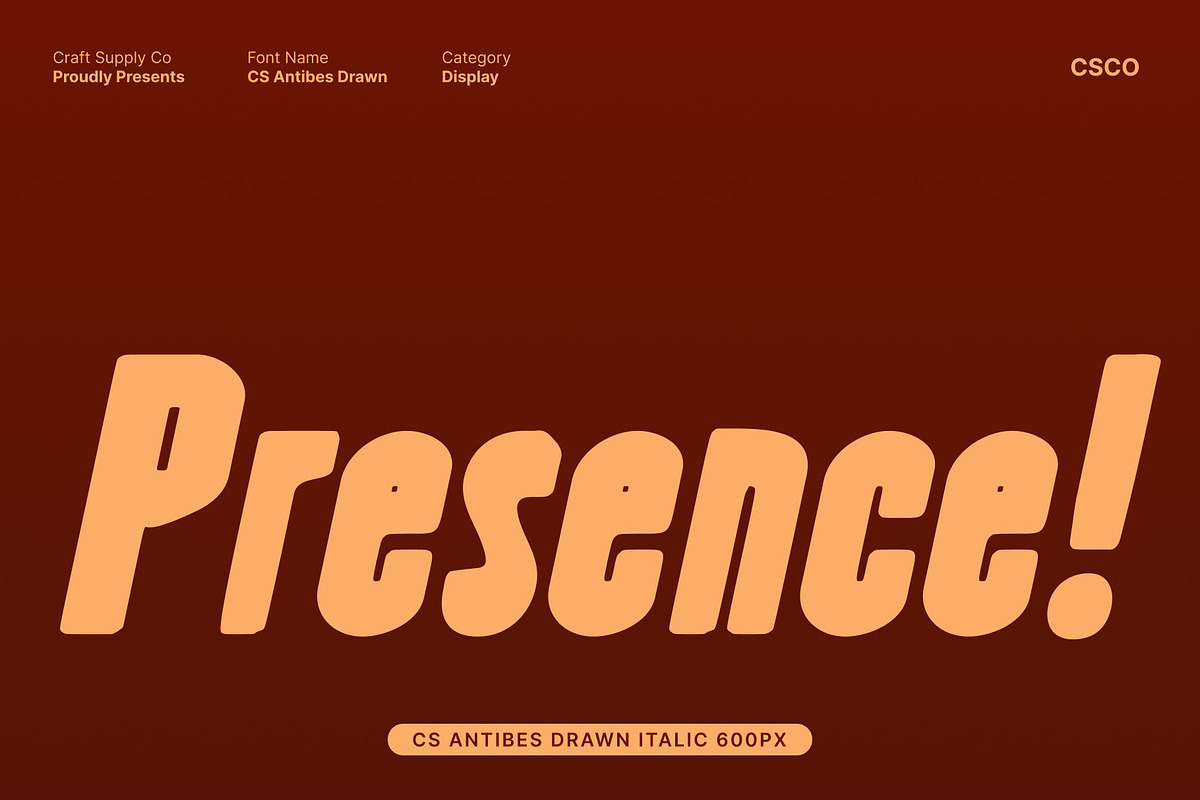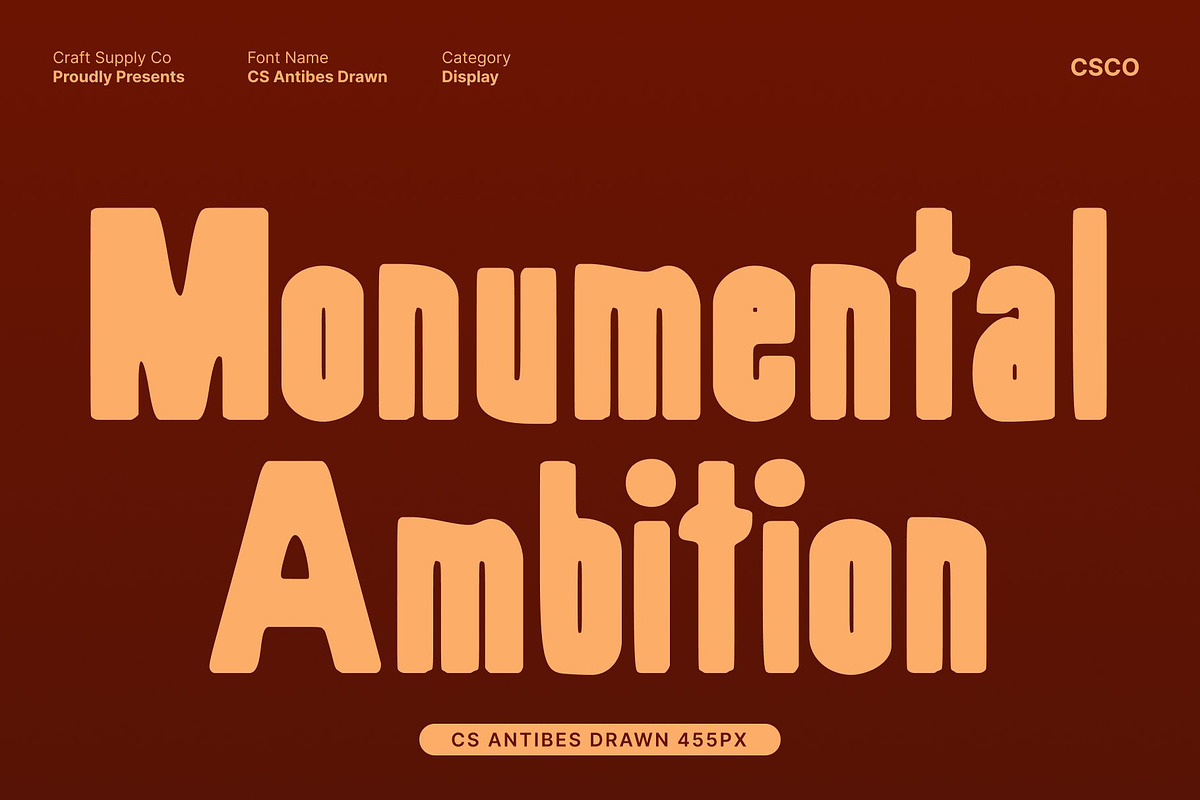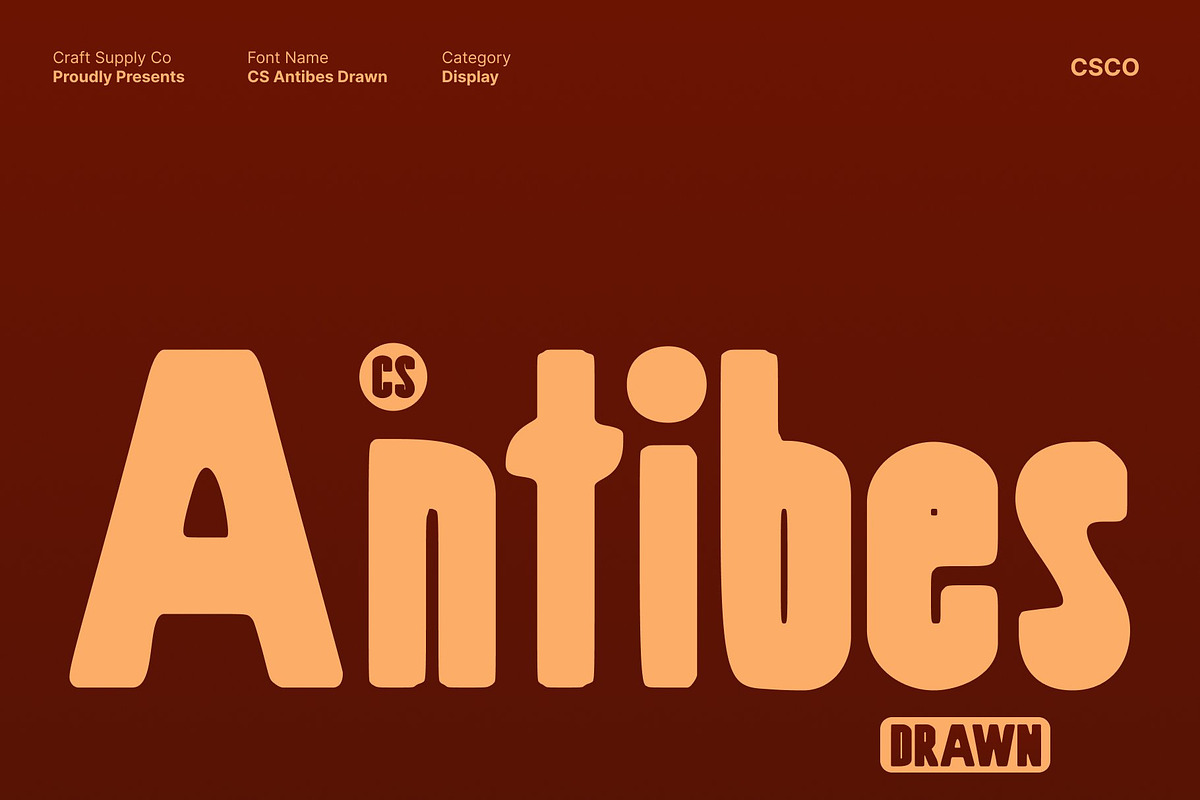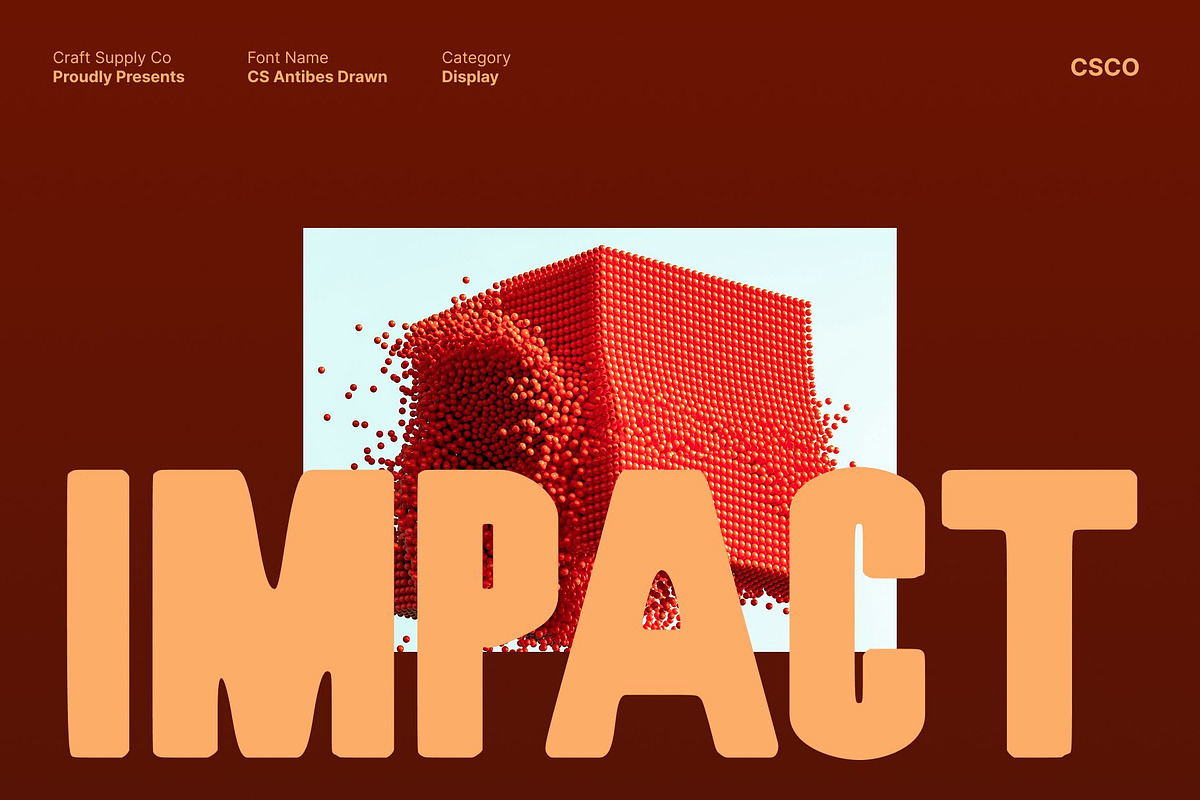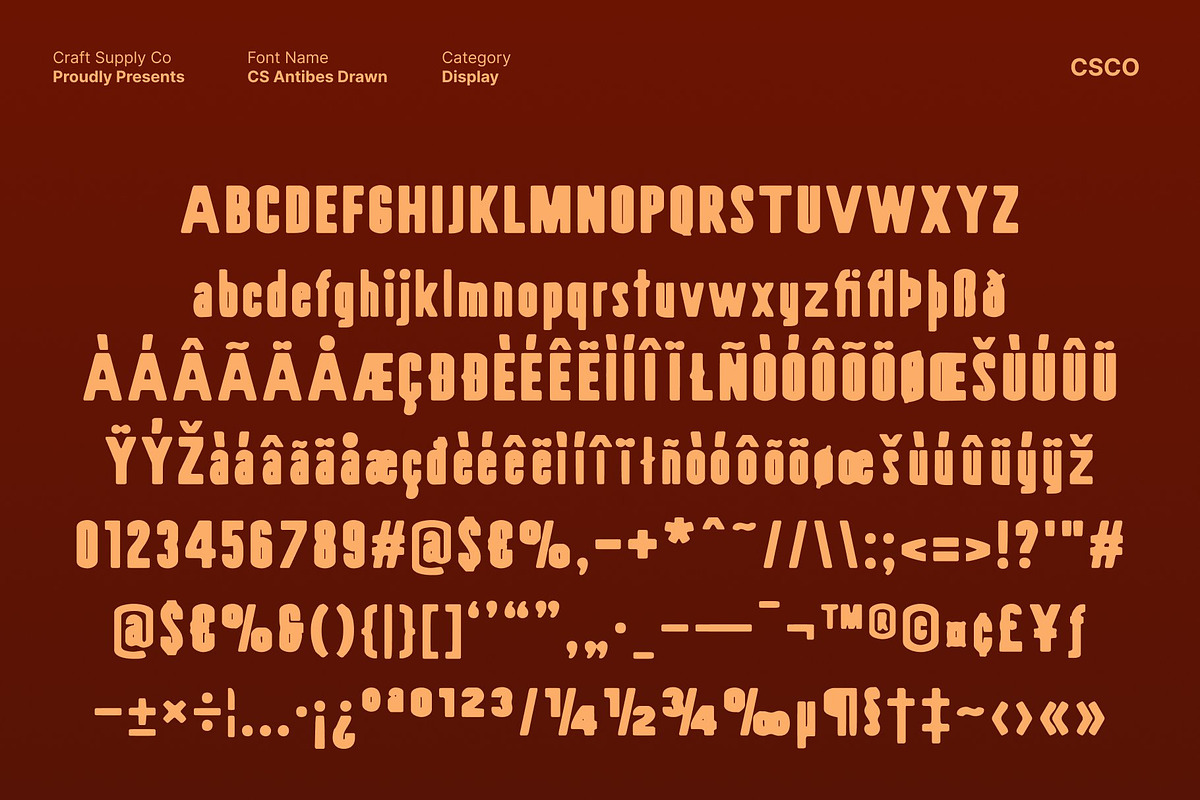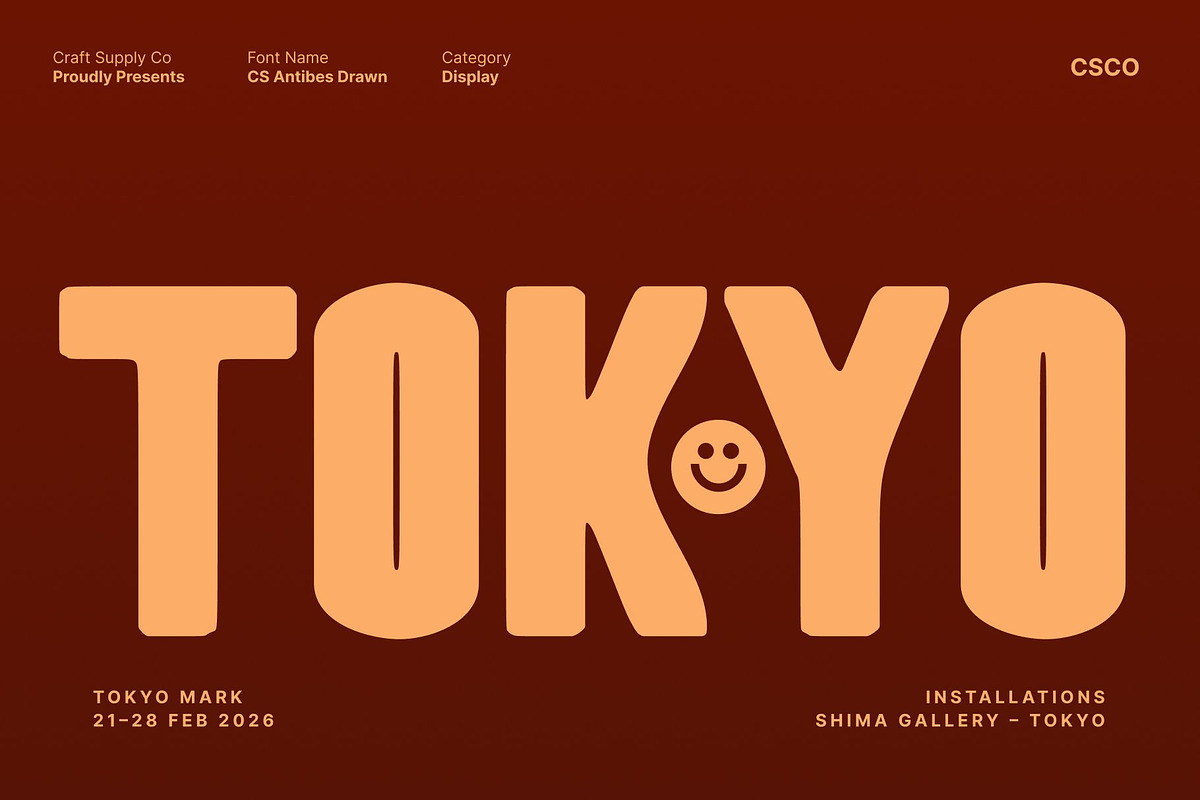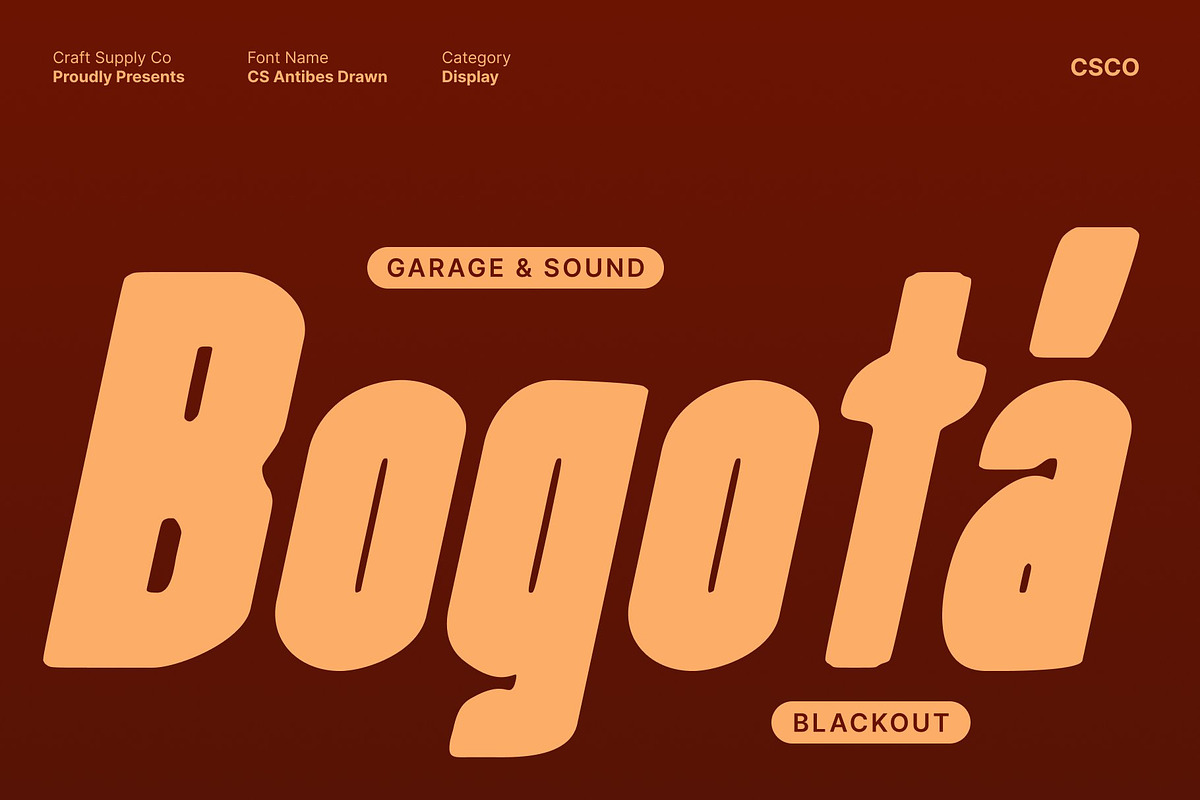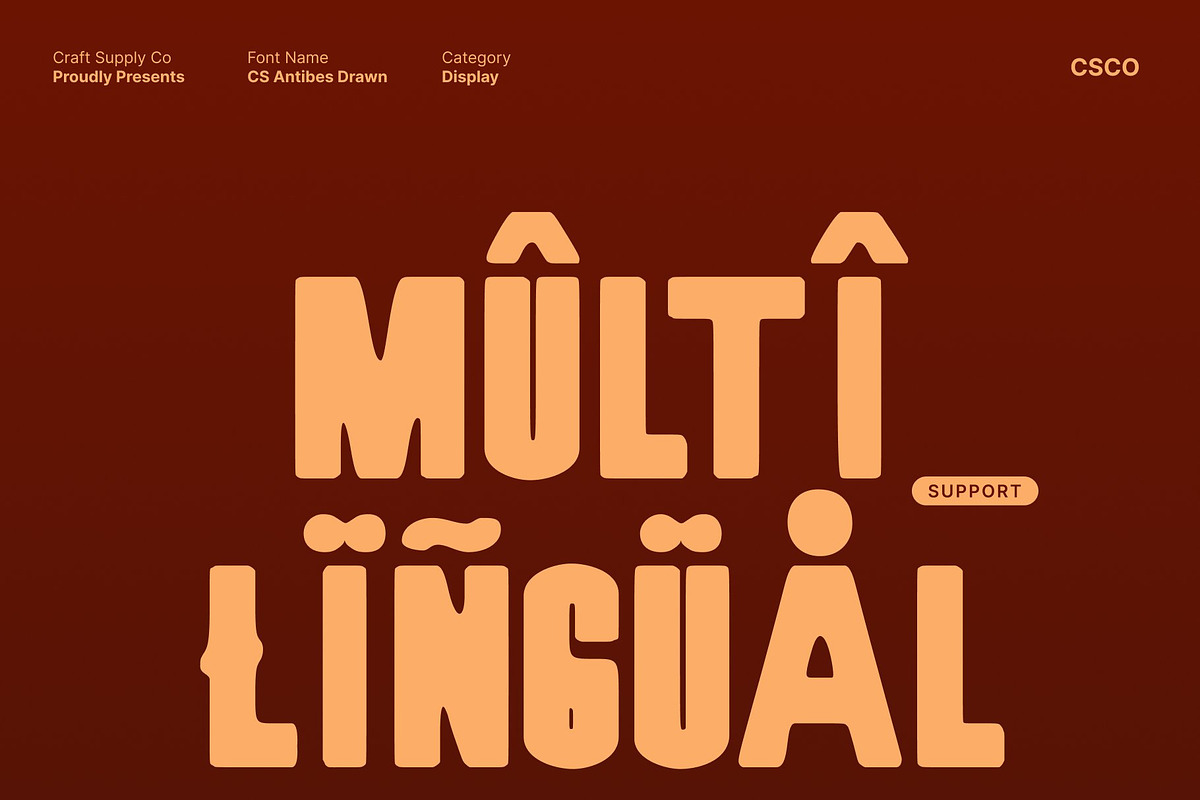
CS Antibes Drawn
CS Antibes Drawn – Bold Condensed Sans Serif with Expressive Hand-Drawn Power
Bold Sans Serif with Striking Presence This is a bold, condensed sans serif display font designed to command attention. Its confident structure and strong proportions create a powerful visual rhythm, while the drawn effect adds subtle organic character. This fusion results in typography that feels assertive, expressive, and unmistakably modern.
Modern Design with Dynamic Energy Clean lines and a dynamic condensed form give this font a contemporary edge. Each letterform is precise and intentional, yet the hand-drawn nuances introduce warmth and personality. This balance allows the font to remain professional while projecting bold creative energy.
Condensed Efficiency with Strong Readability The narrow proportions make this font ideal for impactful headlines and space-efficient layouts. Despite its compact form, this font maintains excellent readability, making it suitable for branding, posters, and editorial designs that require clarity alongside visual power.
Perfect for Bold and Expressive Visuals From modern branding and advertising to event posters and editorial headlines, this font brings confident presence to every application. Its bold weight, condensed structure, and expressive drawn details ensure your designs are not only seen but remembered.